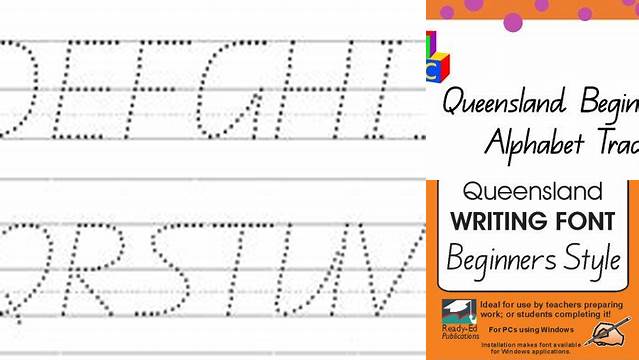
Free Queensland Tracing Font: Download For Beginners
Queensland Beginner's Tracing Font: Free Download for Budding Writers!
Hey guys! Are you on the hunt for a fantastic way to help your little ones learn how to write? Or maybe you're a teacher looking for some awesome resources for your classroom? Well, you've landed in the right spot! We're diving deep into the world of Queensland beginner's tracing fonts – specifically, how to get your hands on a free download that'll have those tiny hands crafting beautiful letters in no time. This article is your go-to guide, packed with everything you need to know about these fonts, how to use them, and why they're such a game-changer for early literacy. So, grab a coffee (or a juice box, depending on who you're helping!), and let's get started. We'll also explore some tips and tricks to make learning to write super fun and engaging. Let's make handwriting a blast for everyone involved!
What Exactly is a Queensland Beginner's Tracing Font?
Alright, so what exactly is a Queensland beginner's tracing font? Simply put, it's a special type of font designed to help kids learn to write the letters of the alphabet and numbers in a specific style. In this case, it's designed for the Queensland (QLD) handwriting style, a popular choice in many Australian schools and homes. These fonts typically feature dotted or dashed lines that form the letters, which kids can then trace over to practice their handwriting. Think of it as a super-powered training wheel for writing! The beauty of these fonts lies in their simplicity and effectiveness. They provide a clear, easy-to-follow guide for children to learn the correct formation of each letter. This helps build a solid foundation for future writing skills. This method not only helps children get familiar with the shape of each letter but also teaches them about the proper direction and sequence of strokes needed to write them correctly. This early exposure to the right handwriting style is incredibly important. It sets the stage for clear, legible writing down the line and avoids the development of bad habits. In addition to the QLD-specific style, the fonts often include numbers, punctuation marks, and even some basic words for tracing. This gives children a complete writing experience from the get-go. We will discuss how these tracing fonts are different from regular fonts, including their design features. We will also explore where and how to use these fonts. Let’s ensure these little ones are off to a brilliant start in their literacy journey, shall we?
Why Use a Tracing Font for Beginners? The Awesome Benefits!
Okay, so we know what a Queensland tracing font is, but why are they so darn useful? Well, there are loads of fantastic reasons! First and foremost, these fonts are fantastic for building fine motor skills. As kids trace the letters, they're practicing the small movements and coordination needed for writing. This helps strengthen the muscles in their hands and fingers, making it easier to control a pencil or pen. Secondly, using a tracing font helps with letter recognition. By repeatedly tracing the same letters, children become familiar with their shapes and forms. This process helps them memorize the visual characteristics of each letter. This is a crucial step in learning to read and write. The act of tracing also improves hand-eye coordination. Kids have to carefully guide their pencil along the dotted lines, which requires them to coordinate their hand movements with what they see. This is a fundamental skill for a whole bunch of activities beyond writing, like playing sports and even getting dressed. Tracing fonts provide a structured learning environment. The dotted lines act as a guide, reducing the pressure on kids to remember the exact shape of each letter from memory. This structured support can be especially helpful for children who are just starting and might feel overwhelmed by the complexity of handwriting. It also helps boost confidence! As kids complete tracing exercises, they feel a sense of accomplishment and gain confidence in their ability to write. This feeling can encourage them to practice more and develop a positive attitude toward learning. With these fonts, learning becomes a fun and engaging activity. Let's not forget the feeling of success that comes with completing a tracing exercise. Seeing a completed letter or word can be a huge motivator for kids! The use of tracing fonts extends to other areas like making learning more accessible for children with learning differences or special needs. They allow children with different learning styles to participate in activities. This creates a more inclusive learning environment.
Finding and Downloading Your Free Queensland Tracing Font
Tips and Tricks for Using Tracing Fonts Effectively
So, you've downloaded your font, installed it, and you're ready to go? Awesome! Here are some tips and tricks to make the most of your Queensland tracing font and turn handwriting practice into a fun adventure:
- Start Simple: Begin with the basics. Introduce one letter at a time, and let your child trace it multiple times before moving on to the next one. This repetition is key to building muscle memory and letter recognition. Focus on proper letter formation, emphasizing the correct starting points and stroke directions. Consistency is the key! Make sure your child is tracing letters correctly from the very beginning, as this will help them develop good habits and avoid bad ones. Model proper handwriting for your child. Show them how to hold their pencil correctly, how to sit up straight, and how to form letters smoothly. Children learn by observing, so be a good role model!
- Make it Fun: Turn handwriting practice into a game! Use colorful pens, markers, or pencils. You can also incorporate stickers, stamps, or other fun elements to make it more engaging. Introduce games like